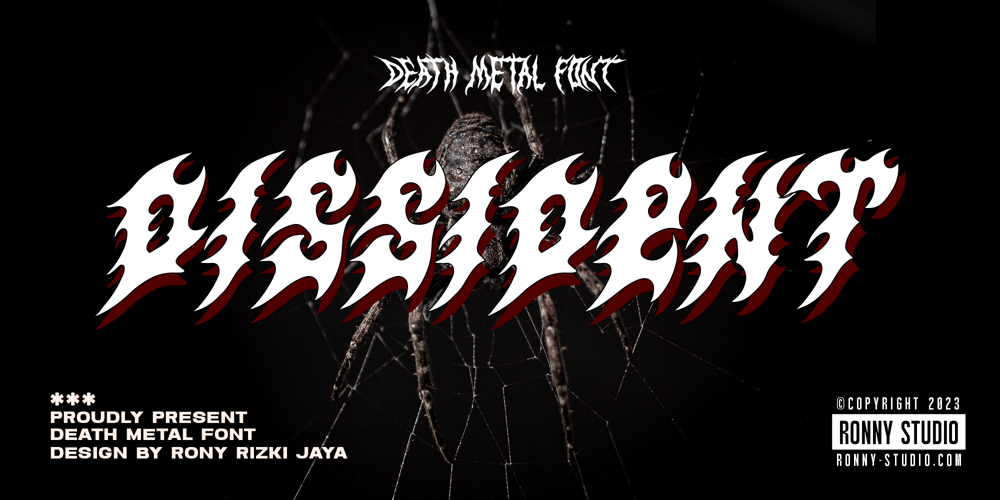
Dissident Font Family was designed by Rony Rizki Jaya and published by Ronny Studio. Dissident contains 1 styles and family package options. Dissident Font is a cool alternative for you to easily create your Underground band logo or whatever. Using alternative fonts and ornaments will liven up the font and will look cooler and fiercer. It comes with a basic character set and a small group of symbols and signs frequently used in the extreme music sector – Death- and Blackmetal classics such as pentagram drops, roots, wings and more.Features :- All Caps- numbers & punctuation- Multilingual- PUA encodedPlease contact us if you have any questions. Enjoy Crafting and thanks for supporting us! :)Thank you